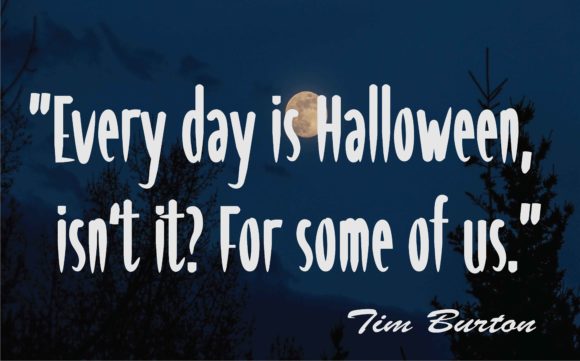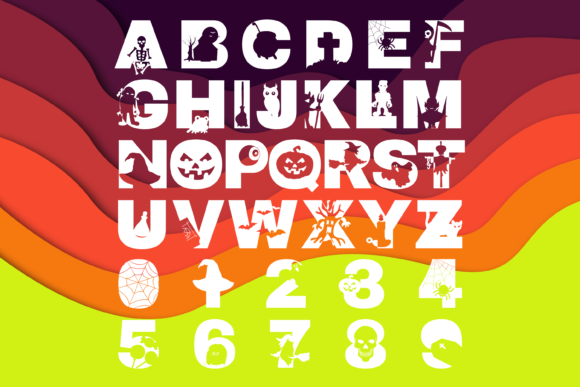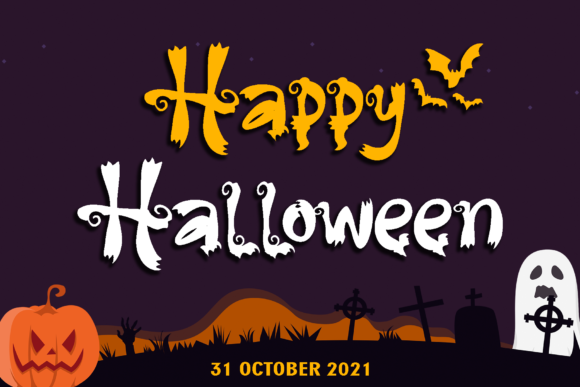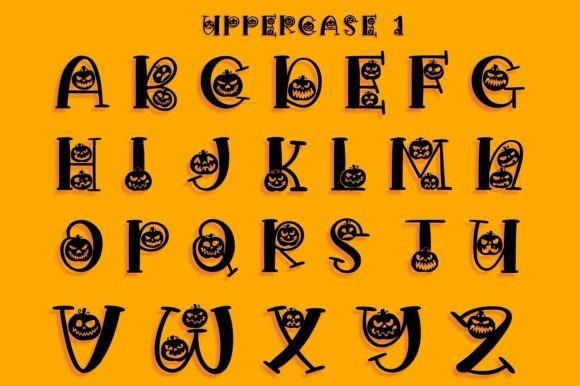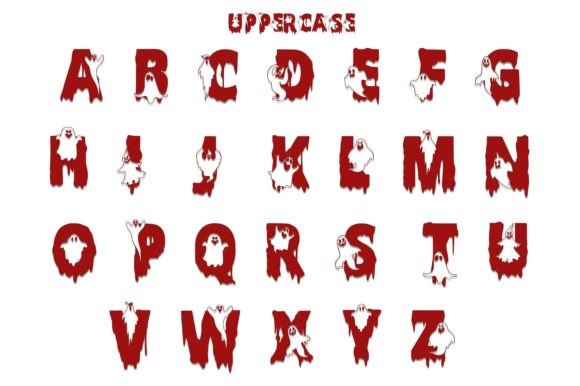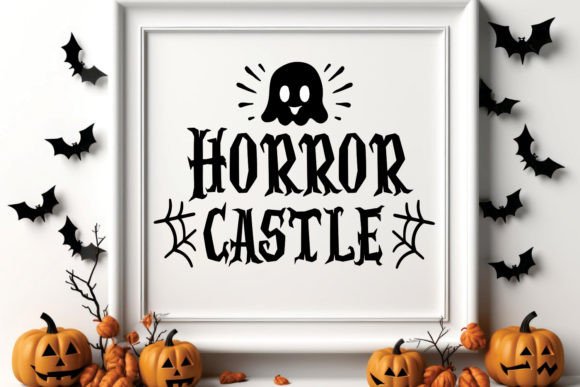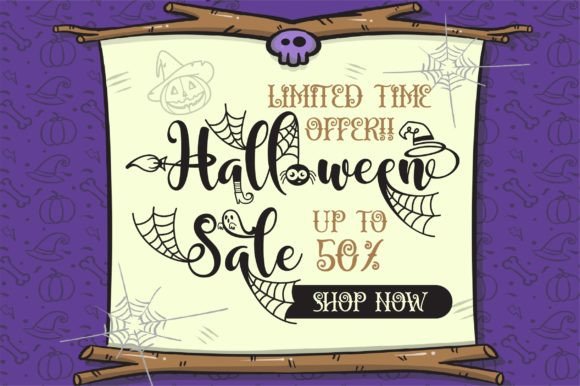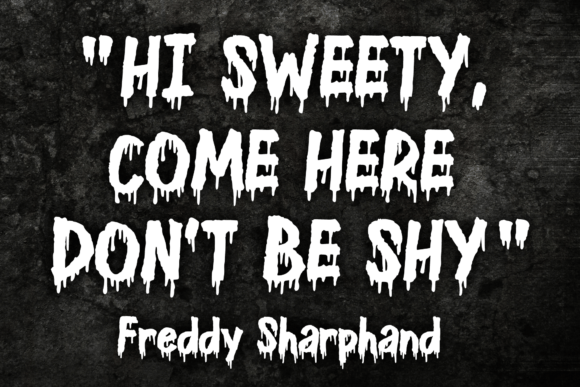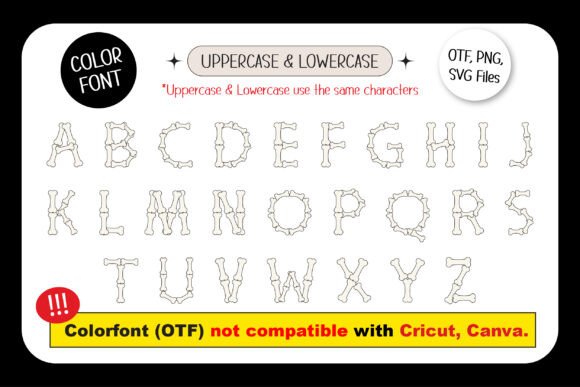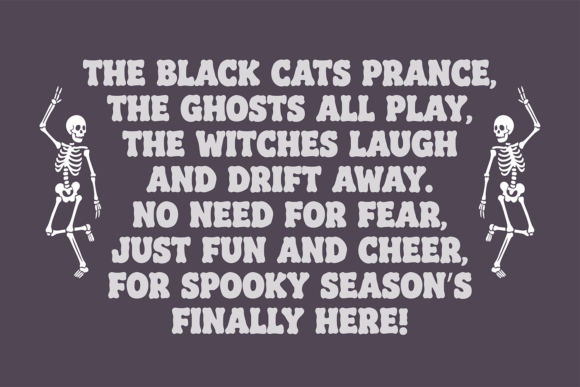
13 Best Spooky Fonts Halloween Designs for Your Creative Projects
As the crisp autumn air settles in and the nights grow longer, designers everywhere begin their search for the perfect aesthetic to capture the spirit of October. Whether you are crafting haunting party invitations, eye-catching social media graphics, or terrifying event posters, your choice of typography sets the tone for everything. Selecting the right Fonts Halloween style is the secret ingredient to turning a good design into a truly chilling masterpiece.
In this guide, we have curated a selection of the top 13 designs to help you embrace the season. From dripping blood effects to skeletal styles, these fonts will ensure your projects scream with personality.
Halloween Font
Introducing the ultimate typeface to craft a spooky and thrilling atmosphere! This unique “Halloween Font” is specifically designed for your holiday projects. It’s perfect for designing posters, party invitations, banners, themed logos, and decorations. Add a touch of mystery, fun, and classic horror to your creations. Make your projects unforgettable with this versatile Halloween typeface.
Dripping Halloween Font
“Dripping Halloween” is a unique decorative font perfectly suited for creating a spooky Halloween atmosphere. With its “dripping” and “bloody” elements, this font instantly adds a macabre charm to any project. It’s ideal for posters, party invitations, headlines, product packaging, or any other design where an element of horror and festive mood is desired.
Scary Halloween Trio Font
Unleash the spirit of Halloween with the Scary Halloween Trio! This captivating font bundle features three unique, spine-chilling fonts perfect for all your spooky season projects. Using the right Fonts Halloween bundles can save you time while ensuring your designs stand out with a truly ghoulish charm.
Halloween Pumpkin Font
A fun and thematic decorative font inspired by Halloween pumpkins. Perfect for creating festive greeting cards, party decorations, and children’s projects.
Halloween Ghost Font
Unleash the spooky fun with our unique “Halloween Ghost” design, perfect for creating an atmosphere of mystery and delight! This cute yet slightly eerie ghost will be an excellent addition to all your Halloween-themed projects.
Halloween Decorative Font
A mesmerizing decorative font with a Halloween theme, perfect for creating spooky invitations, festive posters, and atmospheric designs. These Fonts Halloween styles add a touch of mystery to your creative projects.
Halloween Spooky Font
This unique Halloween-themed font is perfect for creating festive invitations, posters, social media graphics, and any creative projects that require a spooky and fun atmosphere.
Halloween Bundle Volume 5 Font
A comprehensive holiday font bundle designed specifically for Halloween. Features a wide variety of styles ranging from spooky and gothic to playful and decorative.
Another Halloween Font
An atmospheric and creative font inspired by classic horror movies and Halloween vibes. Perfect for designing spooky headlines, party invitations, t-shirt graphics, and thematic event decorations. Integrating quality Fonts Halloween assets will surely elevate your creative output.
Halloween Bone Font
Halloween Bone Font is a unique typeface perfectly suited for creating spooky and fun Halloween designs. Its skeletal outlines and eerie appearance will instantly infuse a horror holiday atmosphere into your projects.
Spooky Halloween Font
Dive into the Halloween spirit with this eerie font! Perfect for creating party invitations, posters, decorations, and any project that needs a sinister and mystical touch.
Spooky Halloween Font
“Spooky Halloween” is a delightfully eerie and fun display font perfect for all your Halloween-themed projects. Embrace the spirit of Halloween with this versatile and charming typeface.
Spooky Halloween Font
Unleash the eerie charm of the season with Spooky Halloween, a captivating display font designed to bring your ghoulish ideas to life. Perfect for invitations, posters, party decorations, and spooky merchandise.
Conclusion
Finding the perfect typography for the spooky season has never been easier. Whether you need something dripping with horror or a fun, pumpkin-inspired design, these 13 choices cover every corner of the spooky spectrum. Don’t let your designs fall flat this year—choose a high-quality font to set the perfect, haunted mood.